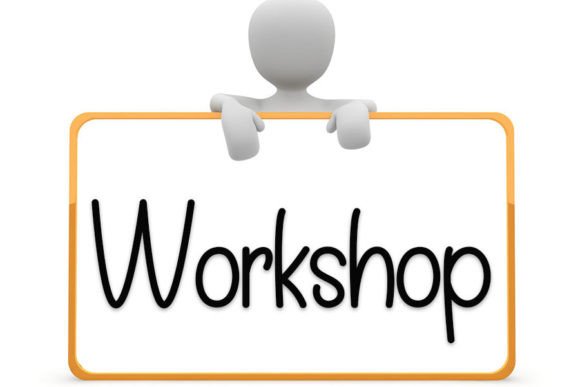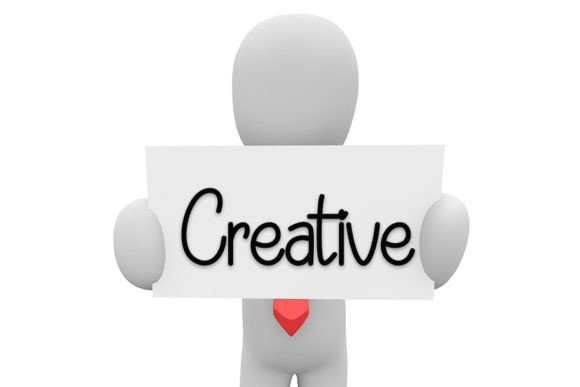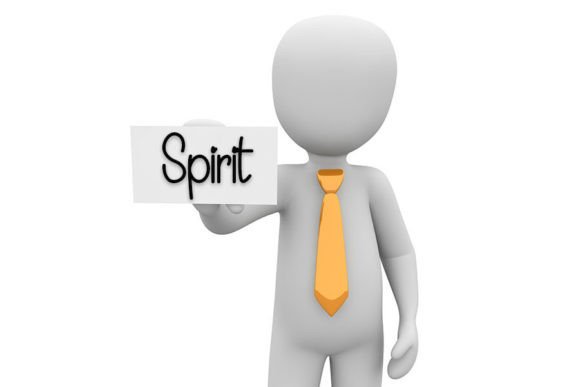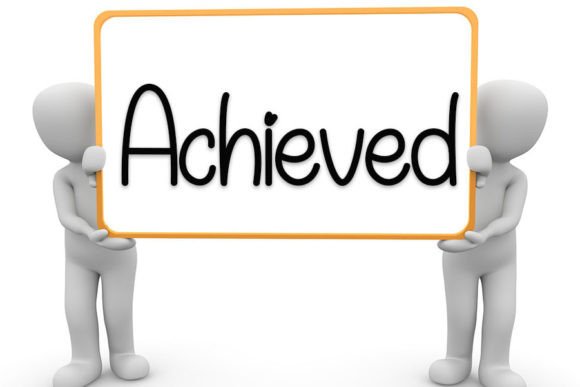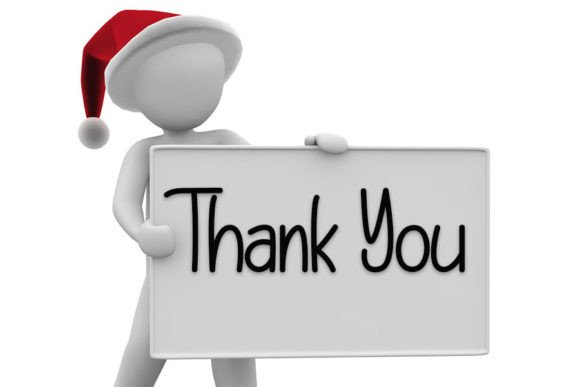
The Designer’s Delight: Uncovering the Charm of Finish Font
I’ll never forget the moment I stumbled upon Finish Font while working on a branding project for a luxury wedding planner. I was on a tight deadline, and my design just wasn’t coming together. The client wanted an elegant, sophisticated look, but every font I tried seemed either too generic or too over-the-top. That’s when I discovered Finish Font, and it was love at first sight! ✨
With its incredibly distinct and timeless style, Finish Font added a touch of magic to my design. The elegant, handwritten curves and lines transported me to a world of luxury and refinement. I knew right then and there that I had to share this beautiful font with fellow designers, crafters, and creative hobbyists.
What I Love About Finish Font
- ✨ Elegant and sophisticated design that’s perfect for luxury brands and high-end projects
- 💫 Supports OpenType features, glyphs, and stylistic alternates for added versatility
- 🎨 Works beautifully with a range of design tools, from Canva to Adobe Creative Cloud
While Finish Font is an amazing addition to any design project, there are a few things to keep in mind: 🤔
- ⚠️ Some users may find the font a tad too ornate for very casual or playful projects
- ⚠️ Not ideal for body text or long-form content, as it’s best suited for headlines and titles
The Story Behind Finish Font: Designer Inspiration
While the true story behind Finish Font remains a mystery, it’s easy to imagine a designer pouring their heart and soul into creating this beautiful font. Perhaps they were inspired by the elegant script fonts of the past, with a dash of modern flair and sophistication. Whatever the inspiration, Finish Font is a true masterpiece that deserves to be celebrated.
Q: What makes Finish Font so special?
A: Finish Font’s unique blend of elegance, sophistication, and playfulness makes it a standout in the world of typography.
Q: Is Finish Font suitable for body text?
A: While Finish Font is amazing for headlines and titles, it’s not ideal for body text or long-form content.